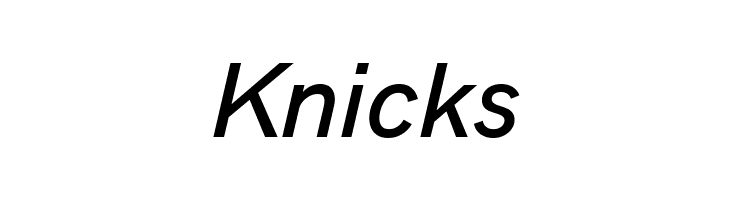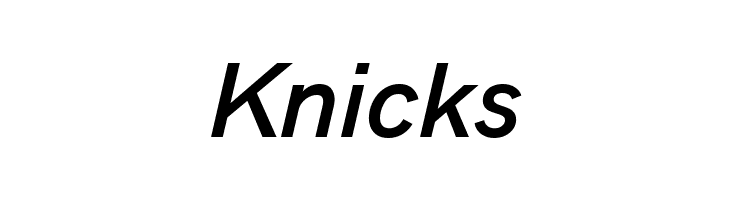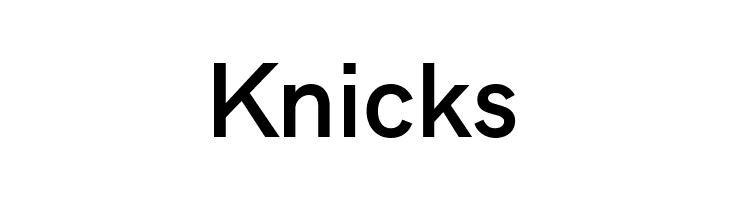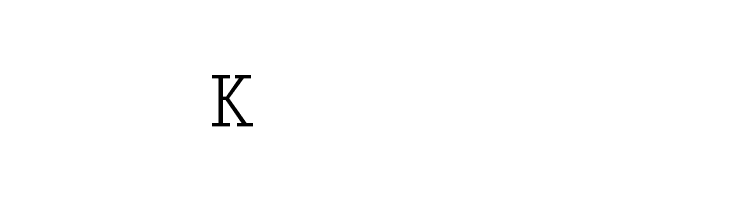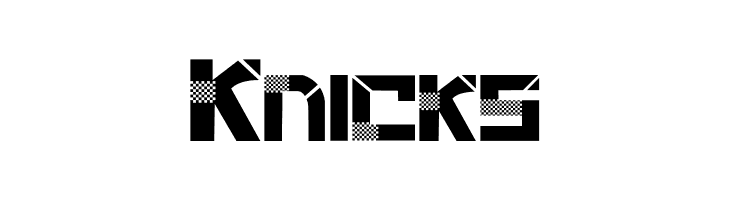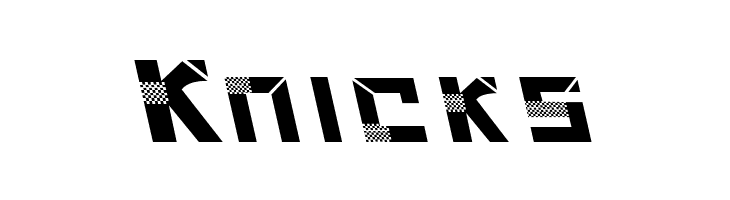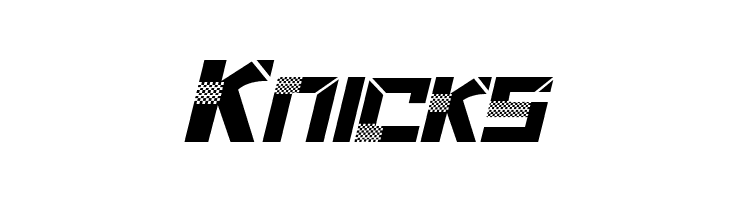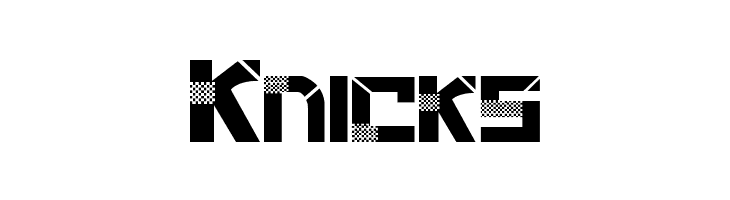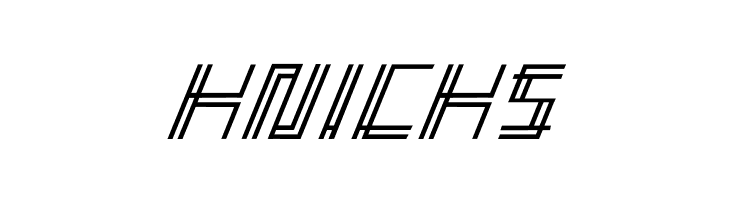
A modern, italicized sans-serif font with clean lines and balanced proportions.
A clean, modern sans-serif font with a semi-bold weight and balanced design.
A modern, semi-bold italic sans-serif font with medium contrast and normal spacing.
A geometric and elegant font with sharp angles and subtle serifs.
A futuristic, angular font with parallel lines and geometric shapes.
A modern, geometric font with a futuristic and digital aesthetic.
A bold, geometric font with a checkered pattern and sharp angles.
A bold, geometric font with a futuristic and industrial design.
A bold, italicized font with geometric shapes and a modern, futuristic style.
A bold, geometric font with a futuristic and industrial design.